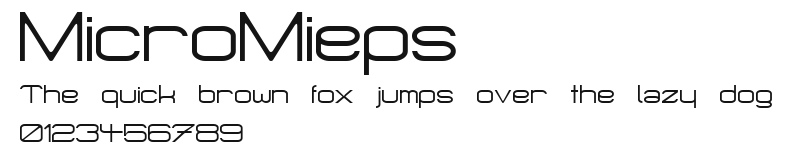
• Font Name: MicroMieps
• Font ID: micromieps regular
• Full Font Name: MicroMieps Regular
• Version: 1.2 Sat Mar 27 16:37:31 1999
• PostScript Name: MicroMieps-Regular
• Character Count: 85
About MicroMieps.ttf
MicroMieps.ttf is a modern, elegant sans-serif font designed for ultimate readability and visual harmony. Perfect for branding, headlines, web design, and print materials.